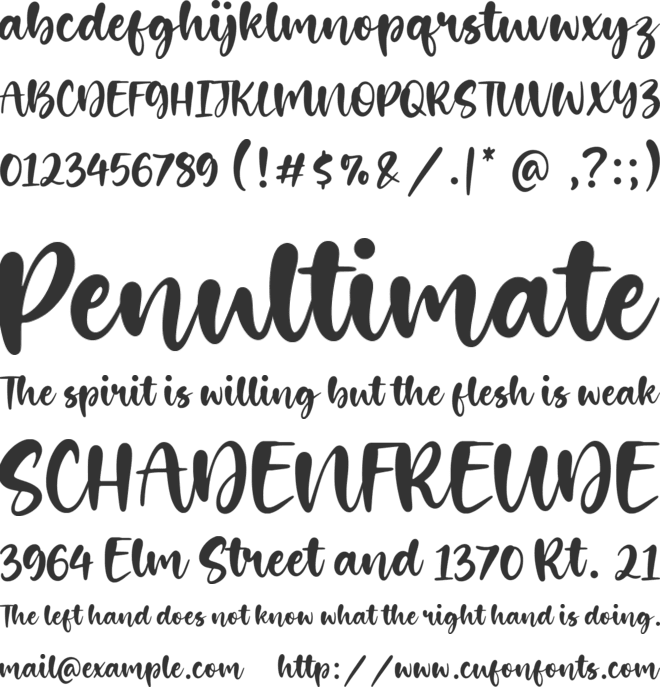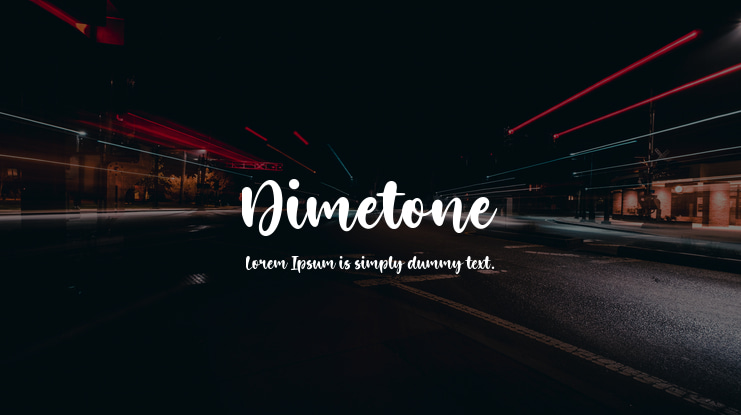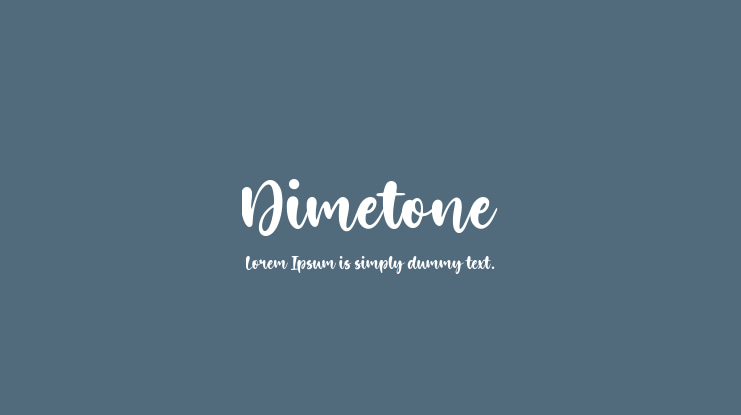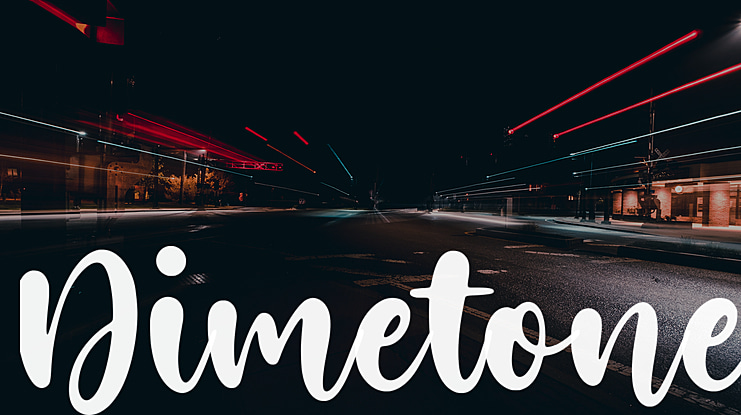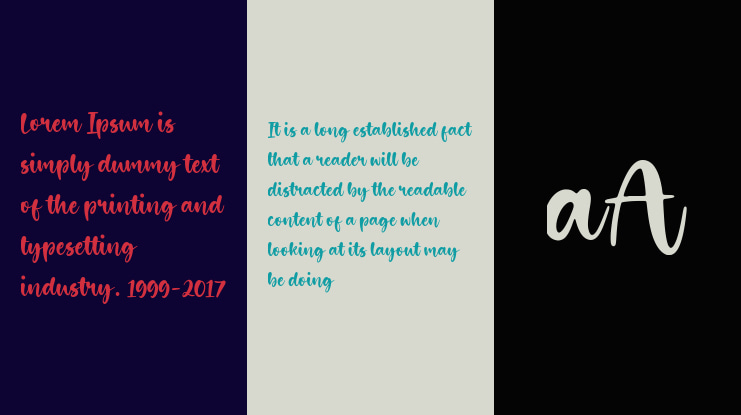
Timur Type Studio
Proudly Present, Dimetone
Dimetone A Handwritten Script Font , which was created with great care and specially created for you ????
Dimetone is perfect for product packaging, branding project, megazine, social media, wedding, or just used to express words above the background.